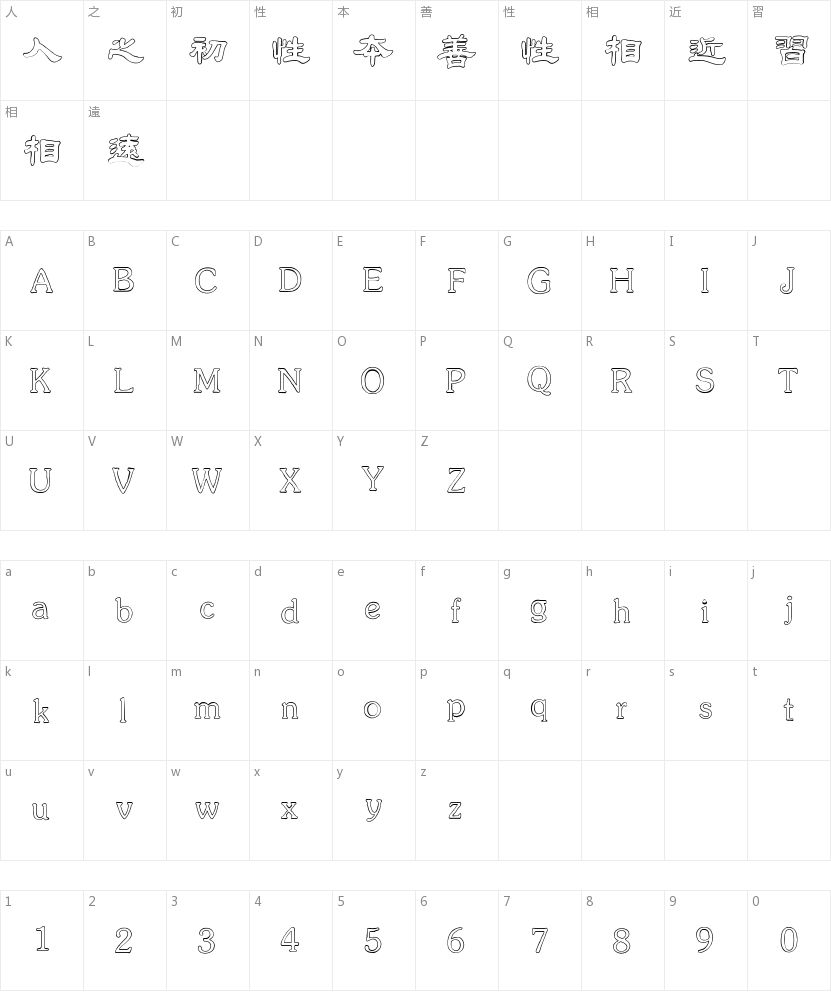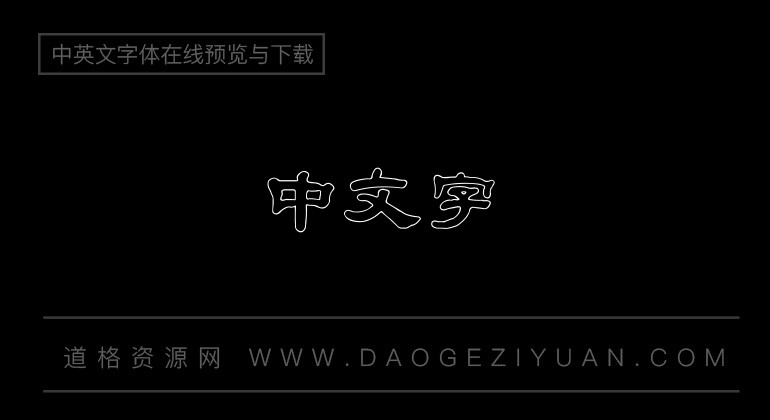
The hollow font of Jinmei Maoli is an exquisite Chinese classical font, which is characterized by more delicate brush strokes and a more three-dimensional effect. Its font structure is also quite special, with more strokes and a more complex structure, but the lines are smooth, and the hollow font is more lively and natural. Jinmei Maoli hollow font is a classical and exquisite Chinese font, which can be used in calligraphy, painting and other artistic works, as well as text beautification and text decoration in design.Content introduction
Jinmei Maoli character-shaped hollow is a very good handwriting art font, with a good visual sense, suitable for cultural propaganda design, commercial brand advertising and product packaging design and personalized text typesetting and other more scenes.